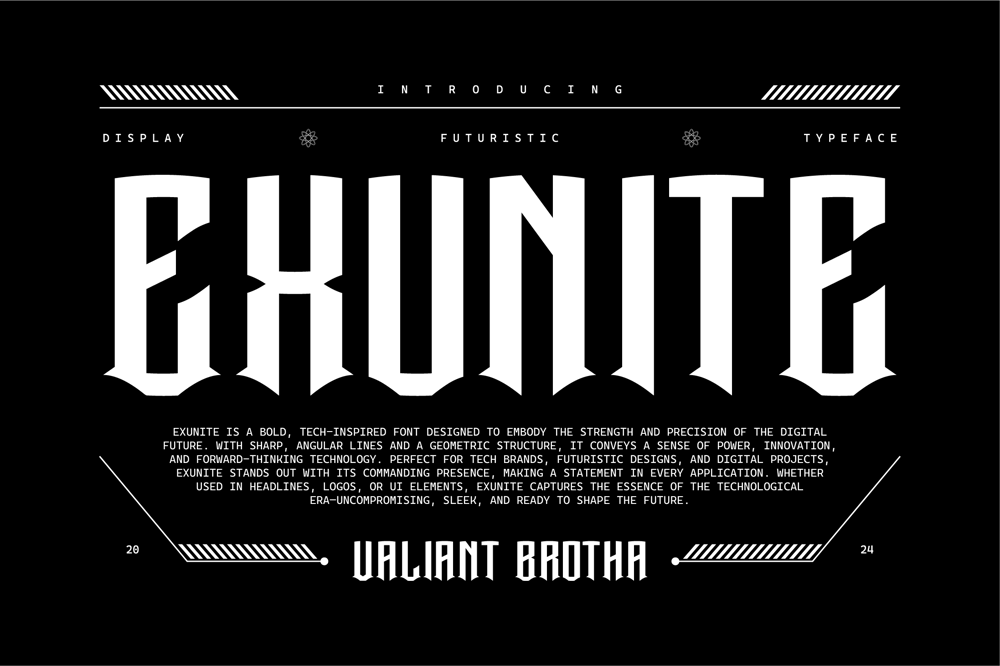
Exunite Font Family was designed by Agus Prima and published by Valiantbrotha. Exunite contains 1 styles and family package options. Exunite is a bold, tech-inspired font designed to embody the strength and precision of the digital future. With sharp, angular lines and a geometric structure, it conveys a sense of power, innovation, and forward-thinking technology. Perfect for tech brands, futuristic designs, and digital projects, Exunite stands out with its commanding presence, making a statement in every application. Whether used in headlines, logos, or UI elements, Exunite captures the essence of the technological era—uncompromising, sleek, and ready to shape the future.